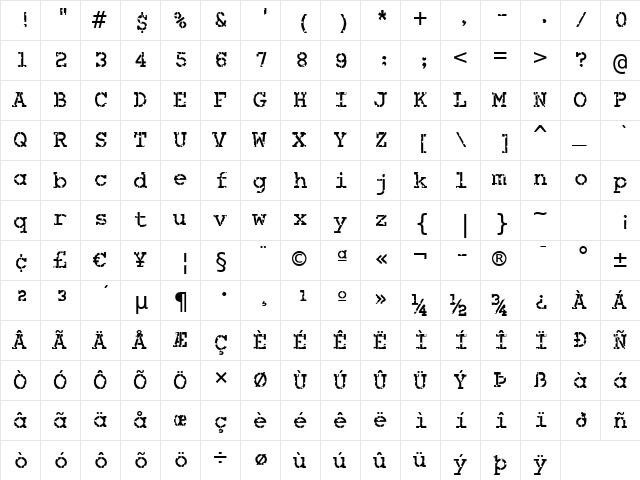
Combat Tested BTN Regular
Design Context for Combat Tested BTN Typeface
Combat Tested BTN has the no-nonsense character of military stencilling and tactical signage, projecting authority and directness.
Designed for tactical branding, military-inspired apparel, action game UI, and utility-focused signage.
Pro Tip: Use Combat Tested BTN at medium-to-large sizes where its utilitarian structure can be appreciated — the character detail gets lost at small sizes.